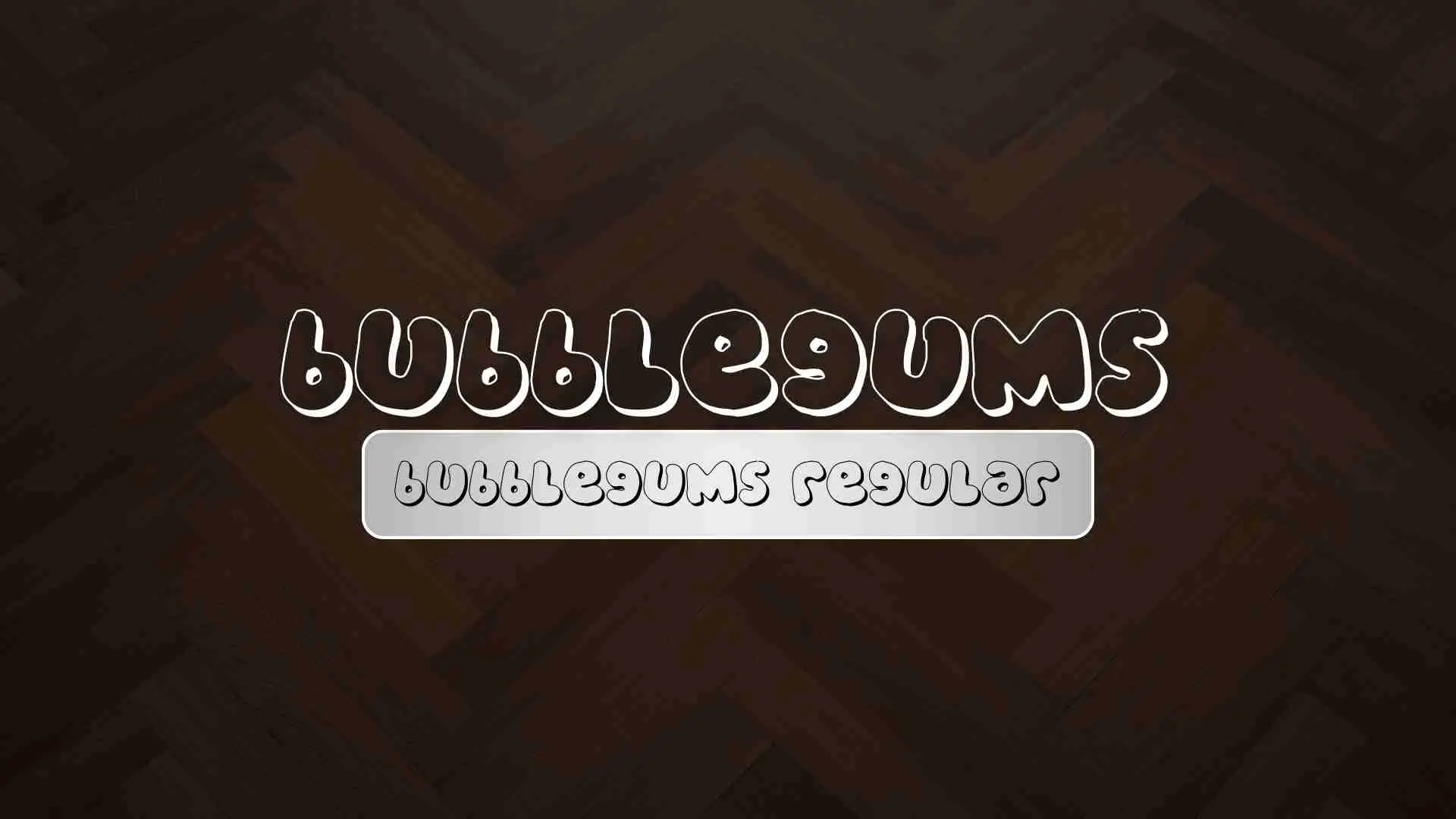
The font Bubblegums Regular, designed by Laura Worthington, falls under the Display, Sans Serif category & Bubblegums font family. Its smooth, flowing letterforms make it a versatile choice for projects that require both elegance and readability. Bubblegums is particularly well-suited for Branding, Poster, Advertising, Event flyers, Logos, Children's Books and Video game. With its balance of simplicity and decorative appeal, this font brings a polished touch to both personal and professional designs.